Threedotstype · 2019
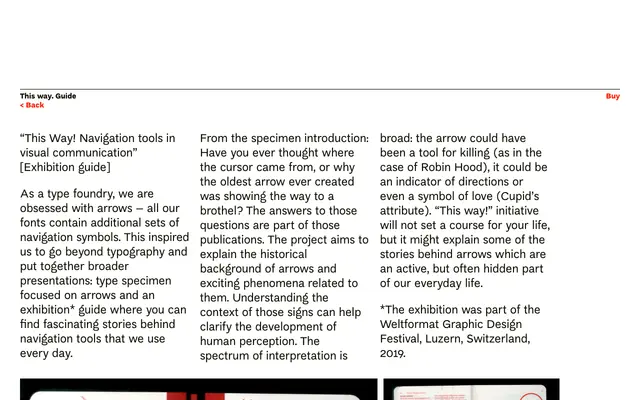
A 60-page printed exhibition guide exploring the history and cultural significance of arrows and navigation symbols, produced by Threedotstype for the Weltformat Graphic Design Festival in 2019.
Published alongside a type specimen focused on arrows, this guide traces the origins of navigation symbols from prehistoric pointing devices to digital cursors, touching on everything from brothel signage to Cupid's iconography. Printed in two Pantone colours on lightweight Stora Enso creamy HiBulk paper at 23 x 12.5 cm, the format was chosen deliberately with international shipping in mind. It is a physical companion to Threedotstype's broader obsession with directional symbols, which inform the navigation glyph sets found across all their typefaces.